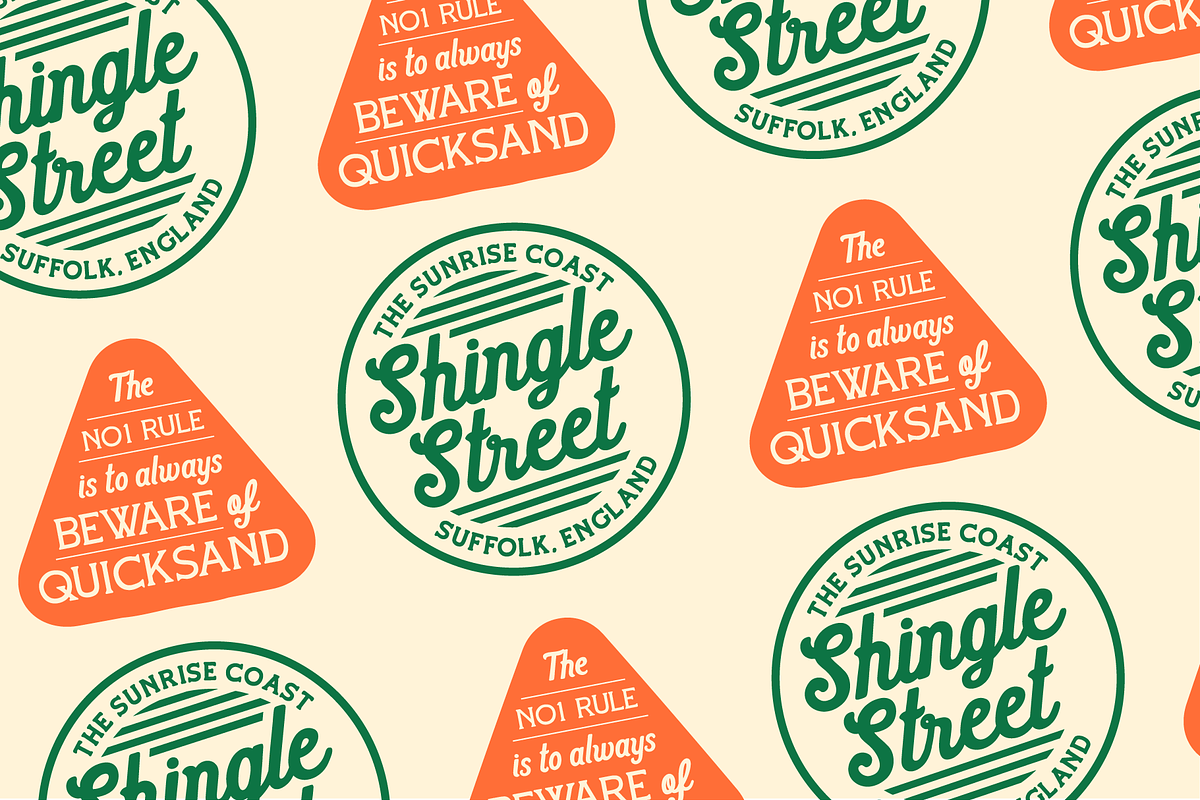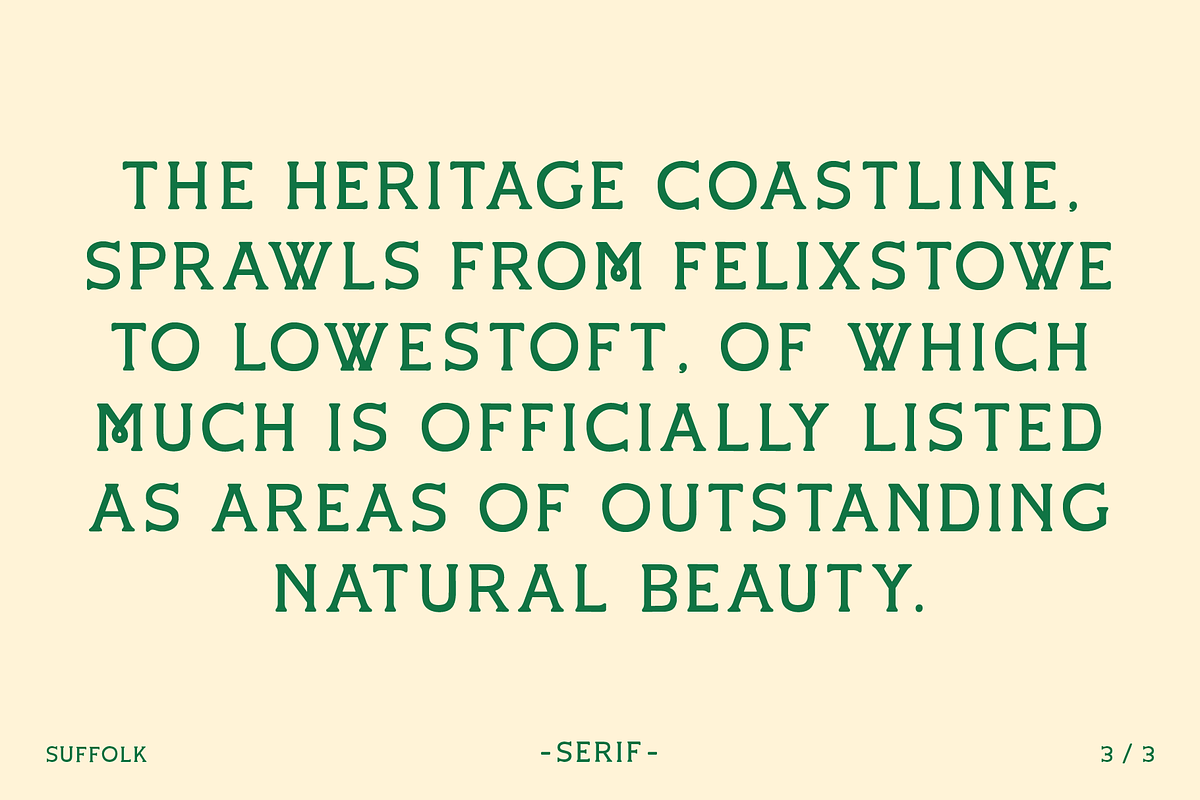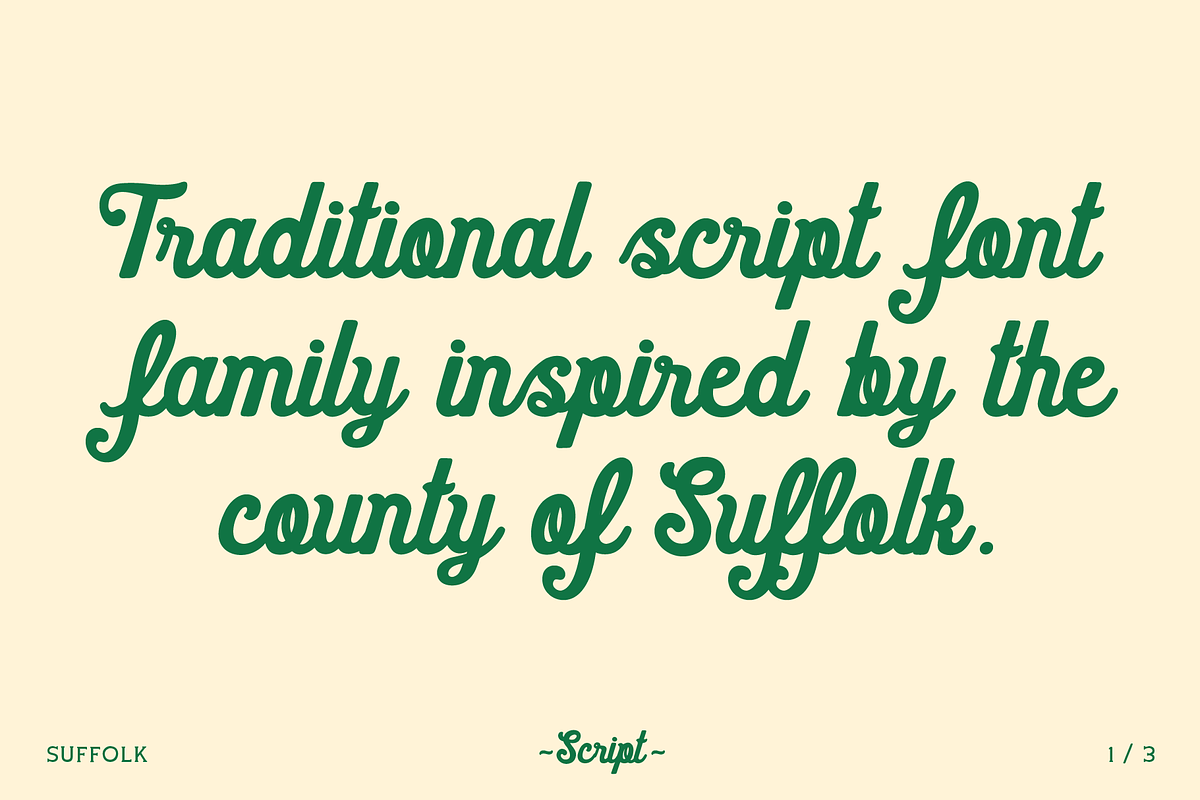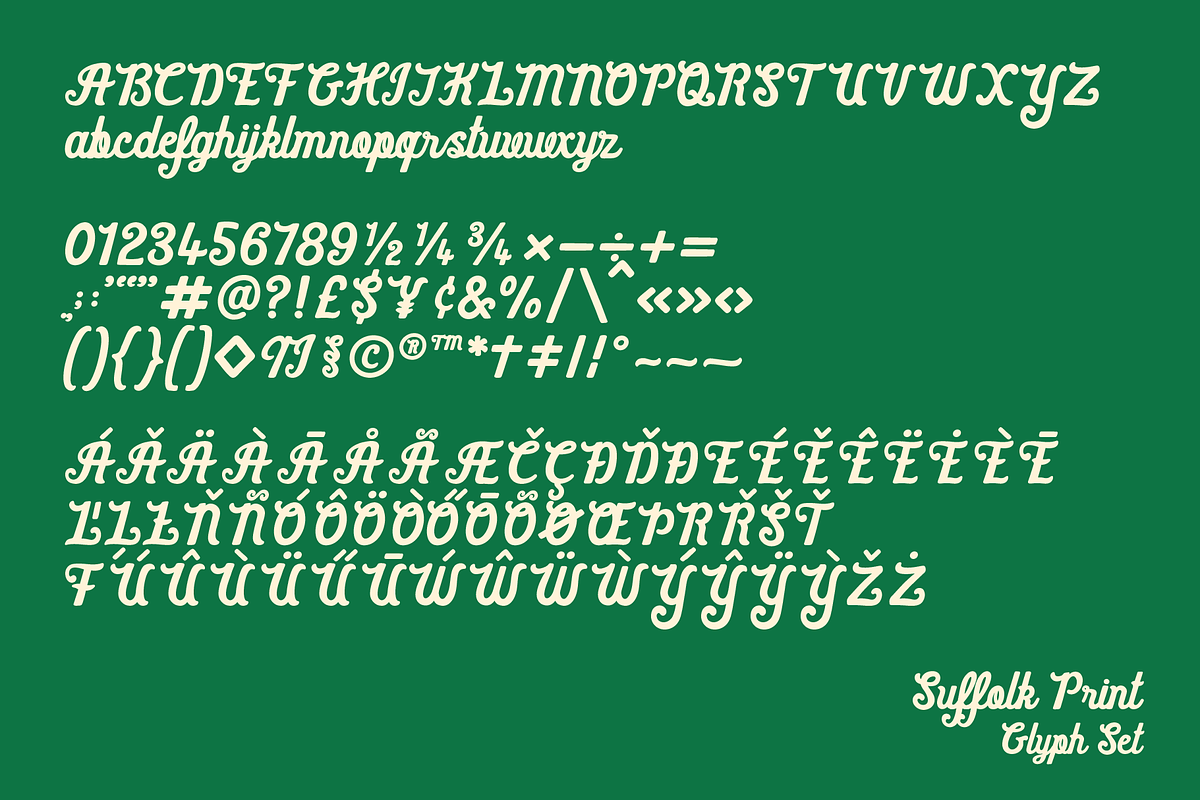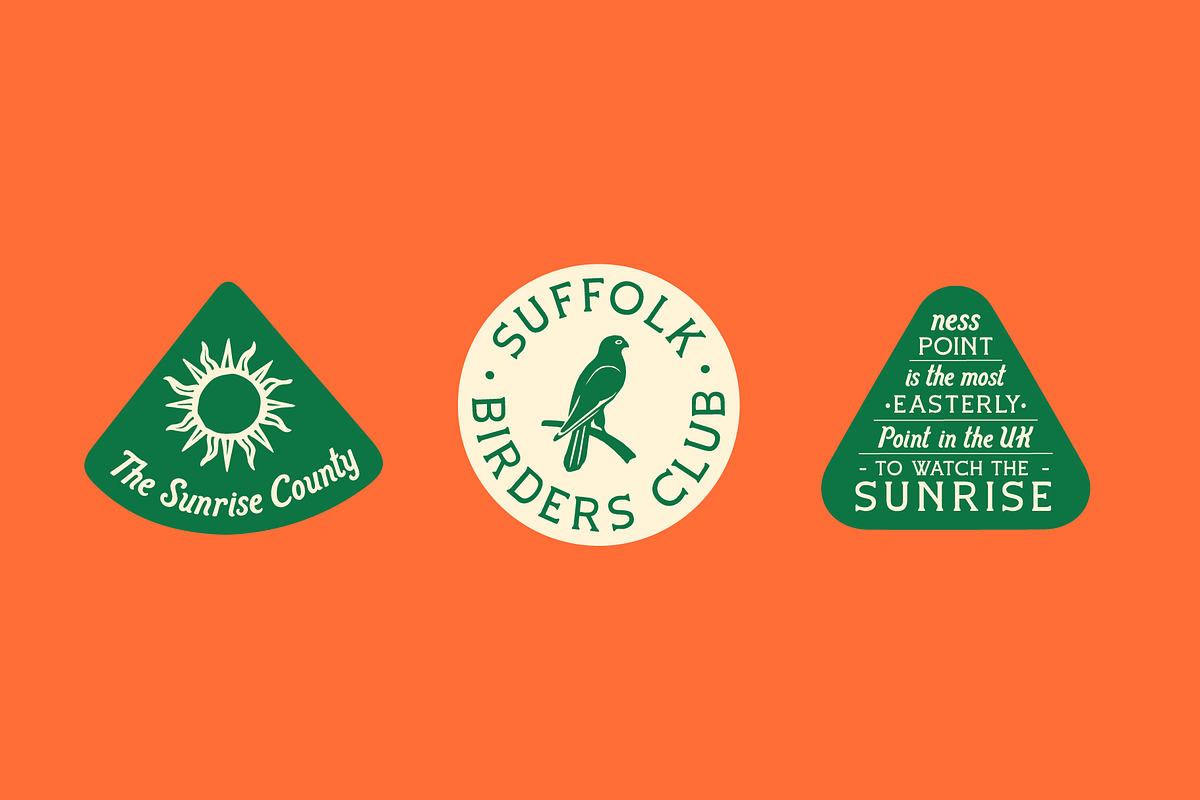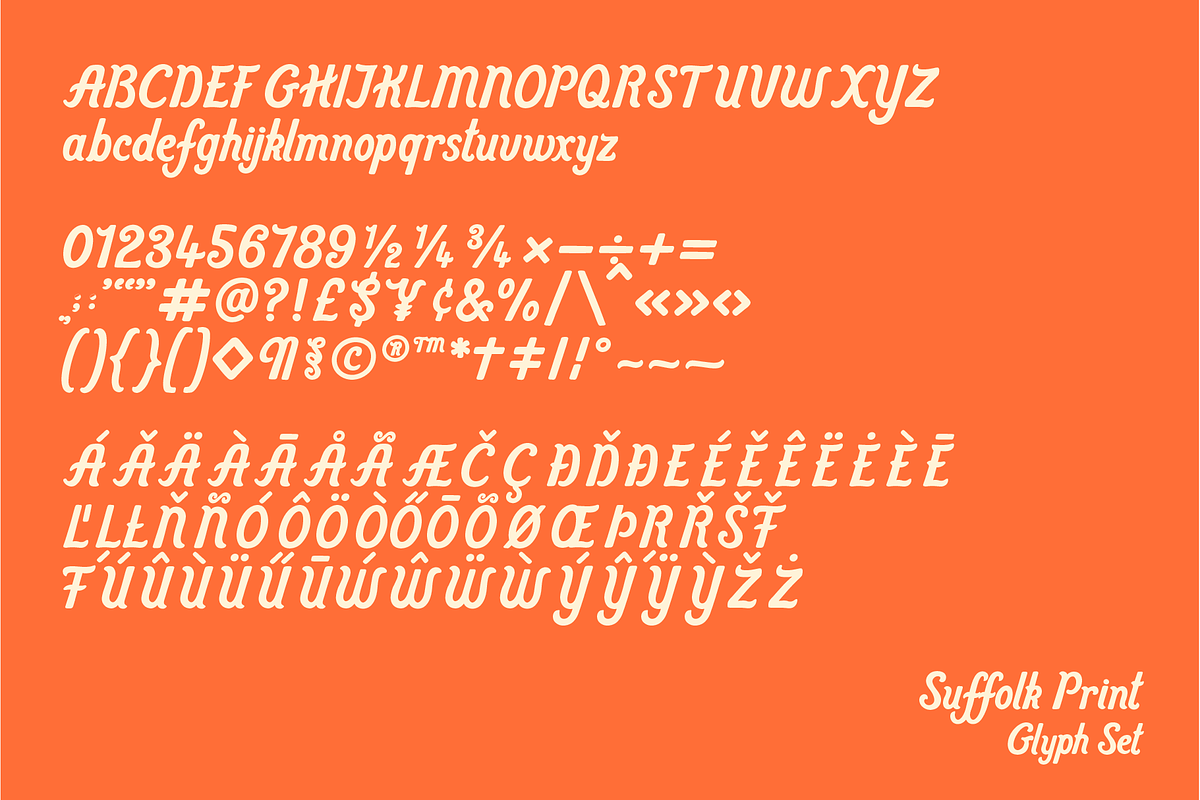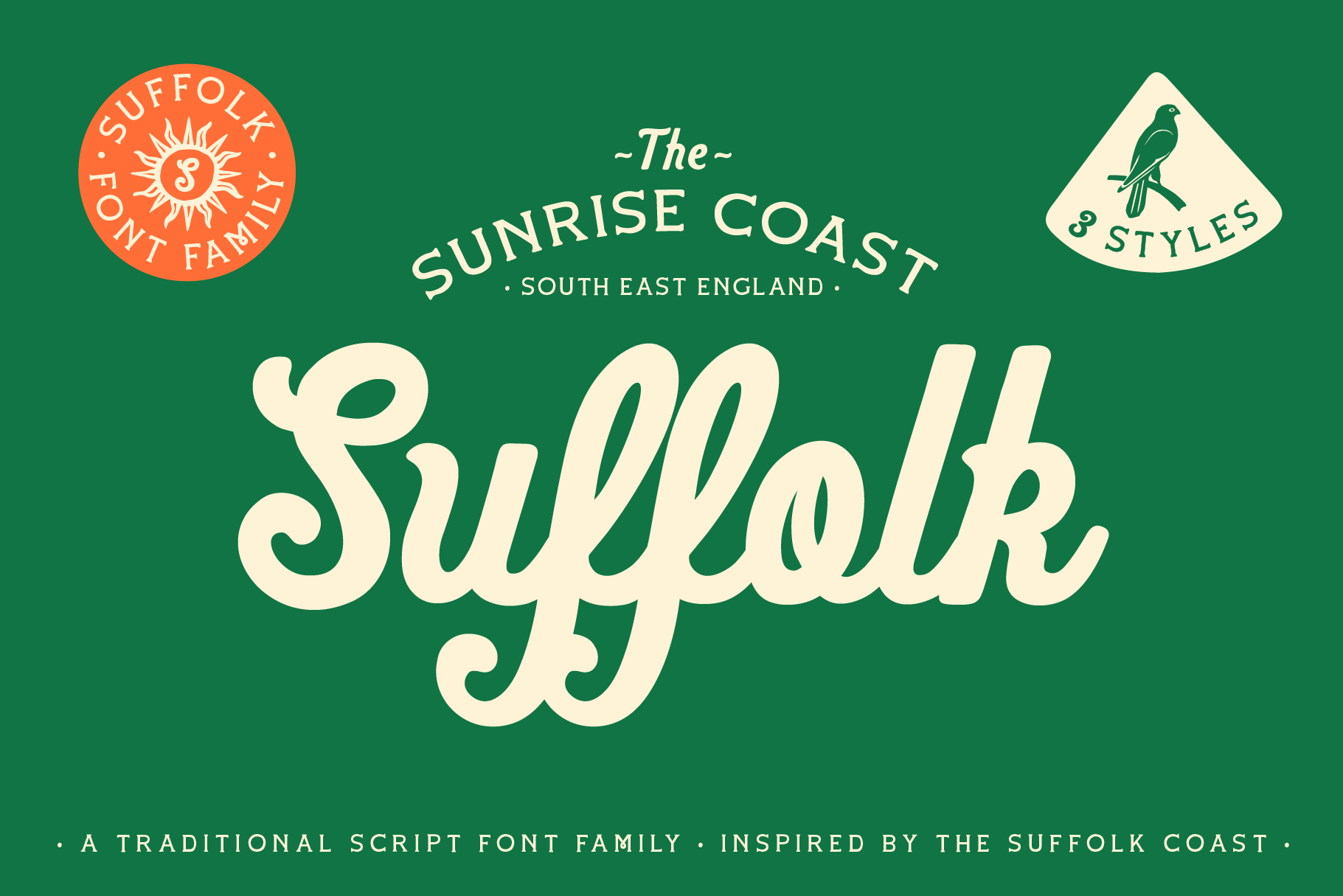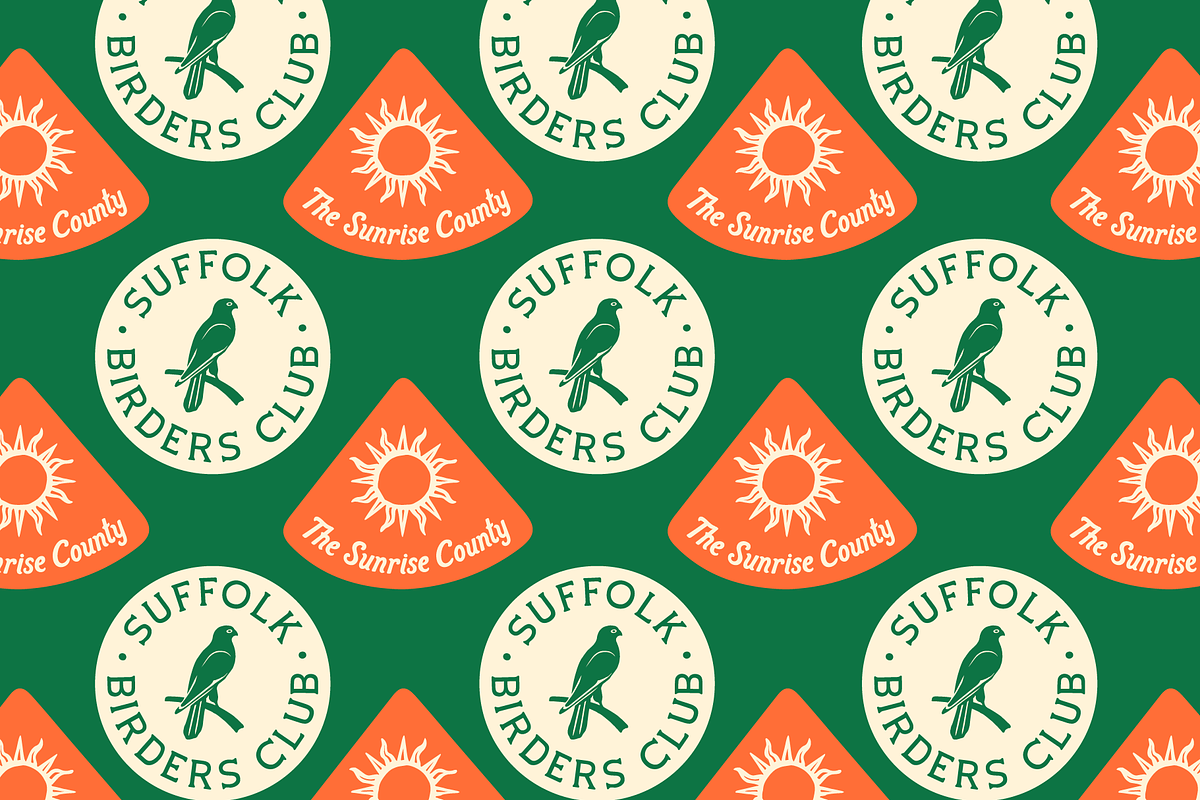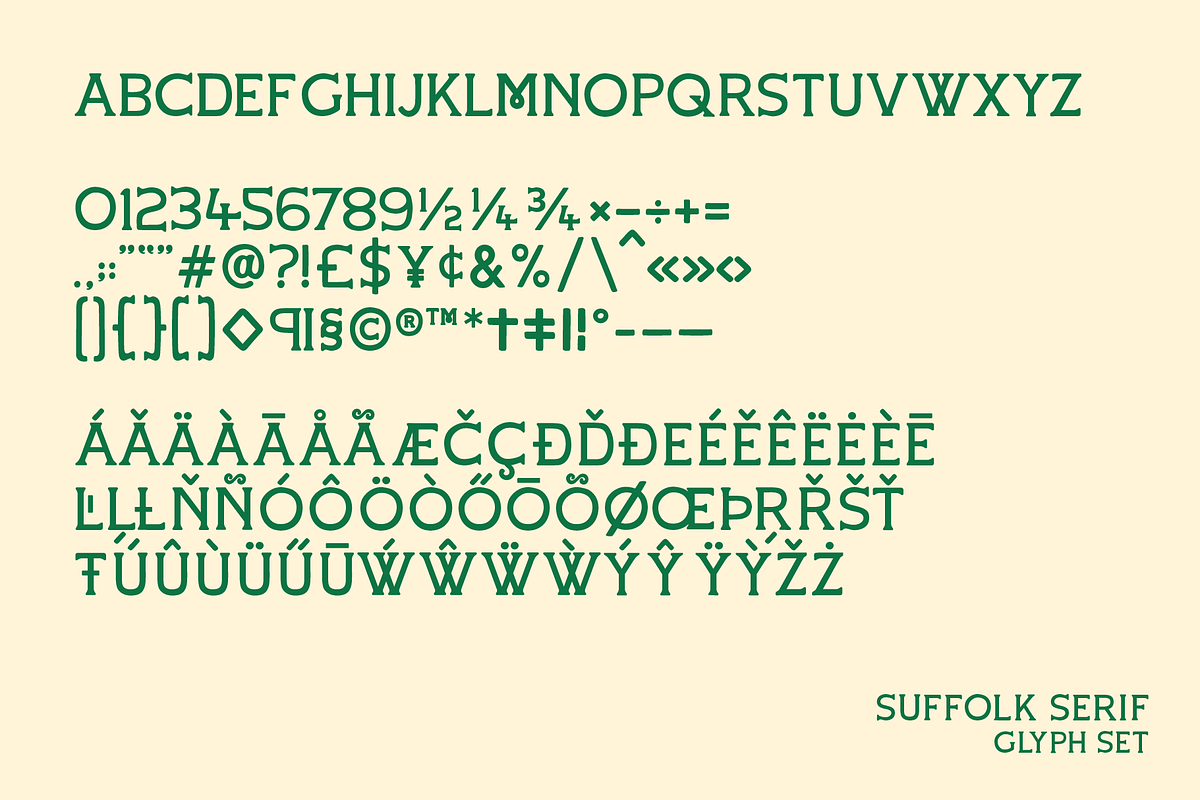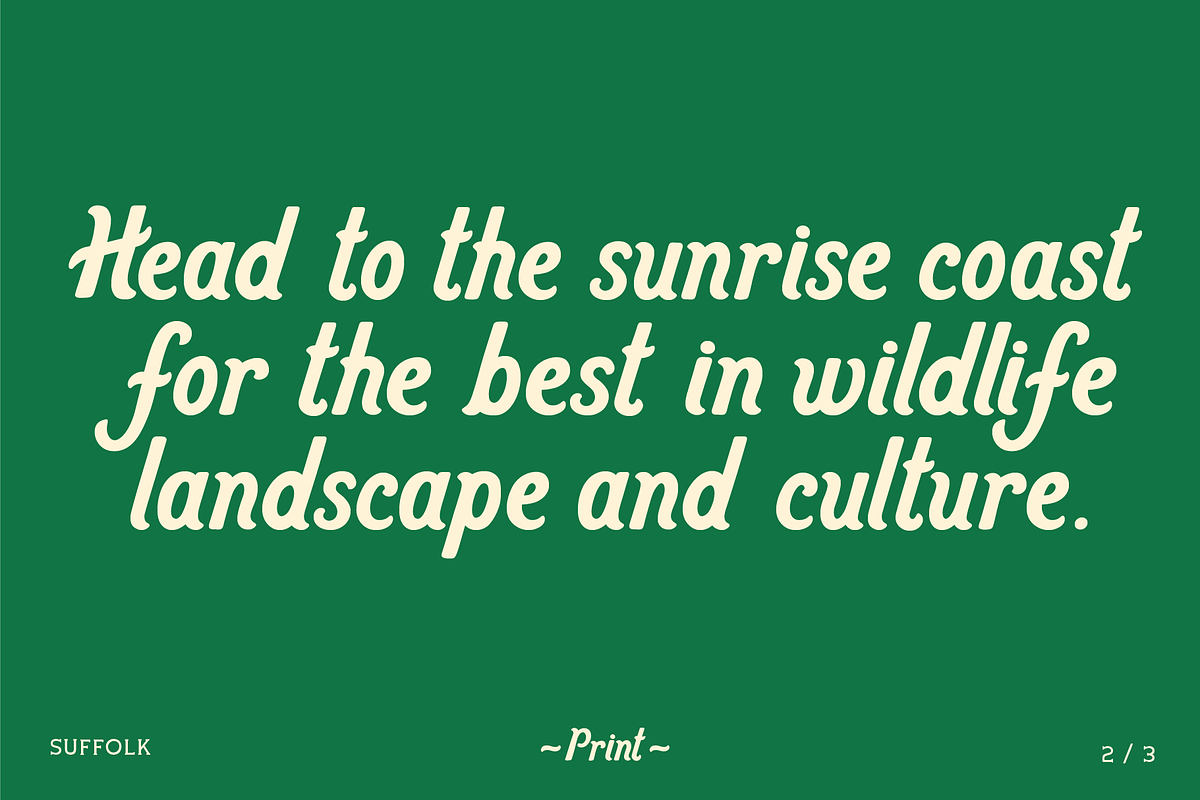
Suffolk Font Family
Suffolk is a traditional yet modern font family that takes inspiration from the county of Suffolk and its rich coastal history.
This handwritten style font is a modern rustic take on a traditional script font and comes with a joined up 'script' style and an individual 'print' style. Along with a 'serif' style that evokes a similar feeling of old meets new that works well alongside the two handwritten styles.